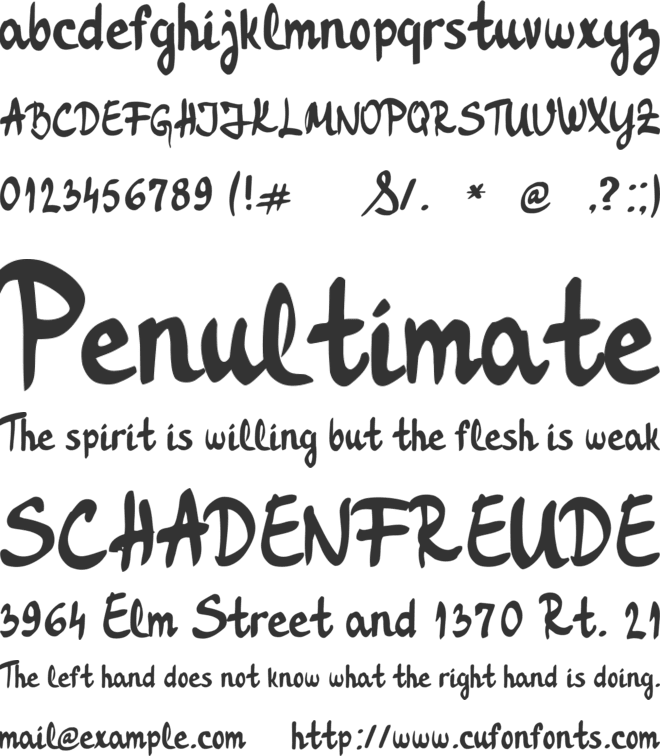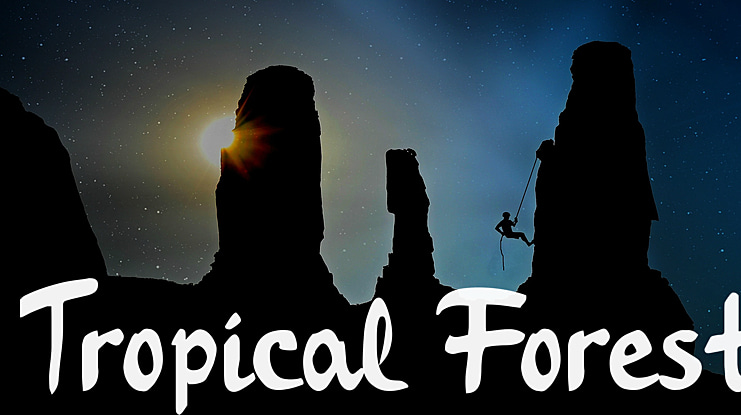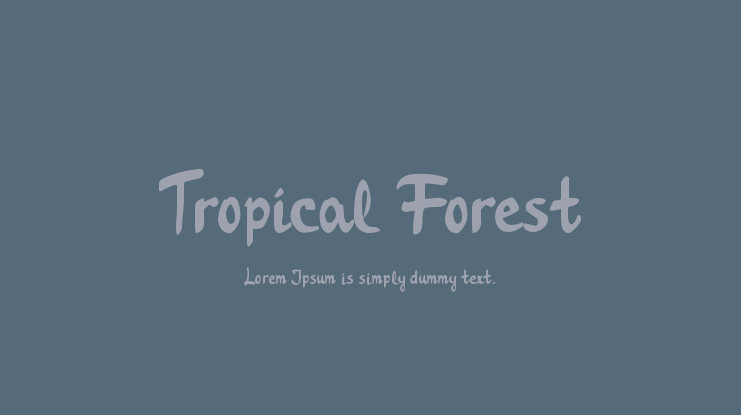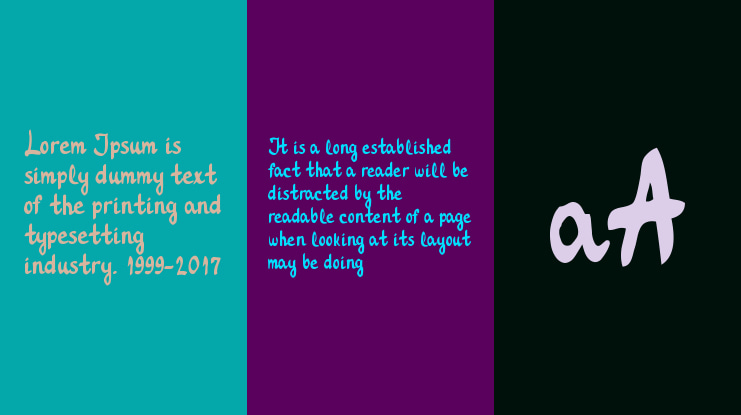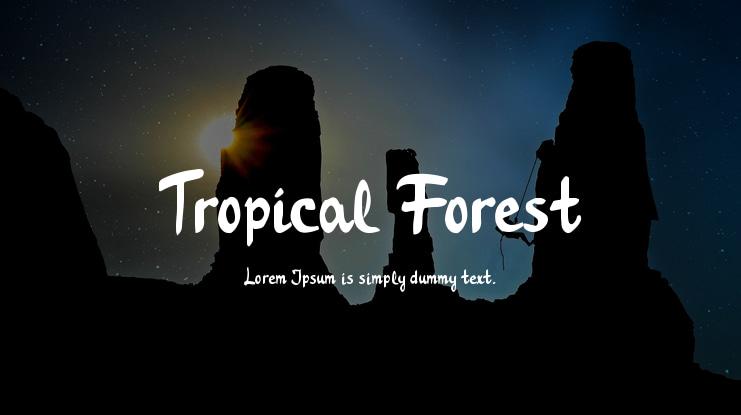
Tropical Forest Font
Alessandra M
Tropical Forest is a handwritten font created with marker pen.
Tropical Forest contains basic Latin characters, lowercase and uppercase, punctuation and numbers.